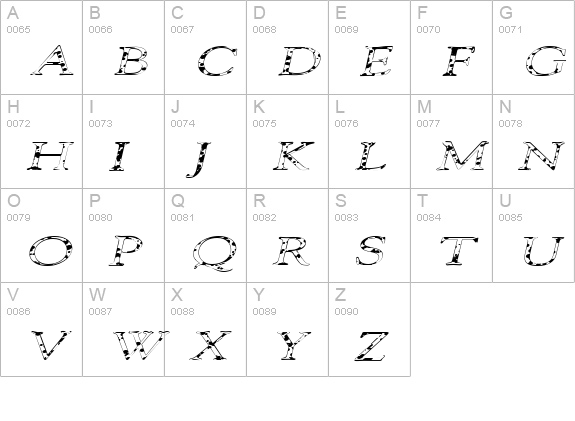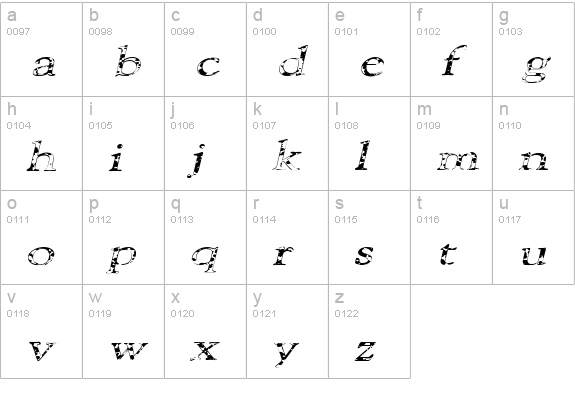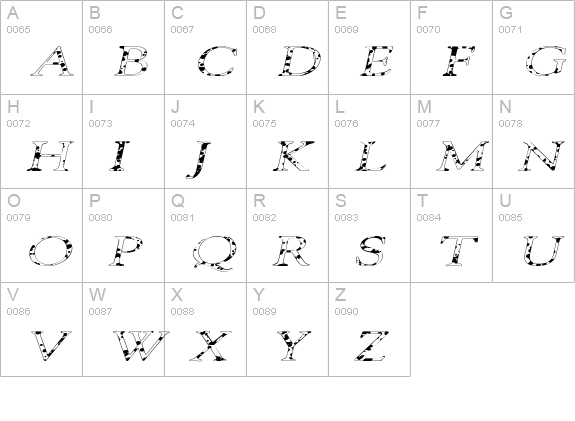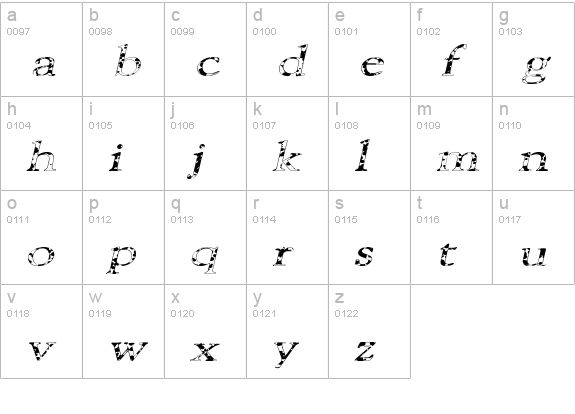
101 Puppies Italic SW is a distinctive, italic variant in the 101 typeface family \xE2\x80\x94 well suited to design and typography projects.
101 Puppies Italic SW font is a playful and charming typeface that brings a sense of fun and whimsy to any design project. With its cute and quirky characters, this font is perfect for creating eye-catching headlines, posters, invitations, and more. The italic style adds a touch of elegance and sophistication, making it versatile for both casual and formal applications. What makes 101 Puppies Italic SW font even more appealing is that it is available for free download at FontsMarket.com. This means you can easily add this delightful font to your collection without any cost, making it a fantastic choice for designers on a budget or anyone looking to add a touch of personality to their projects. Don't miss out on this adorable and versatile font - download it for free today!